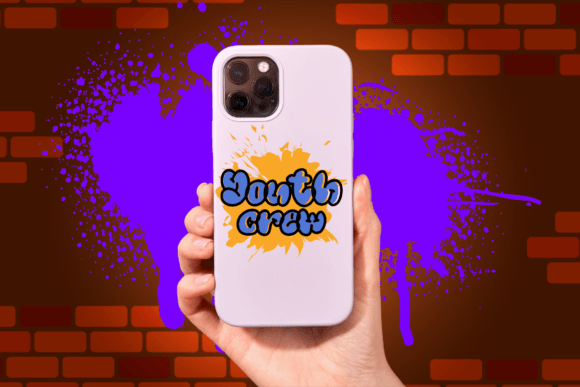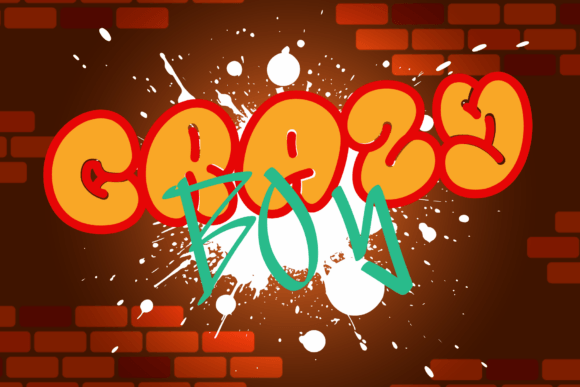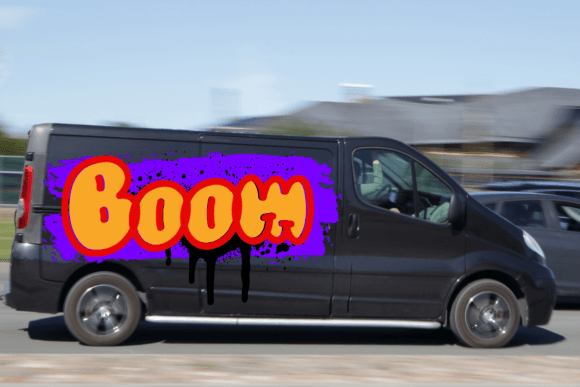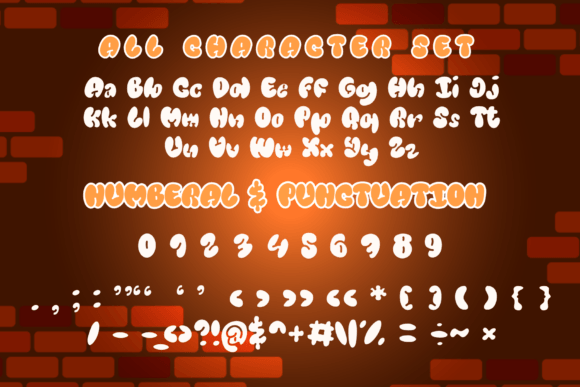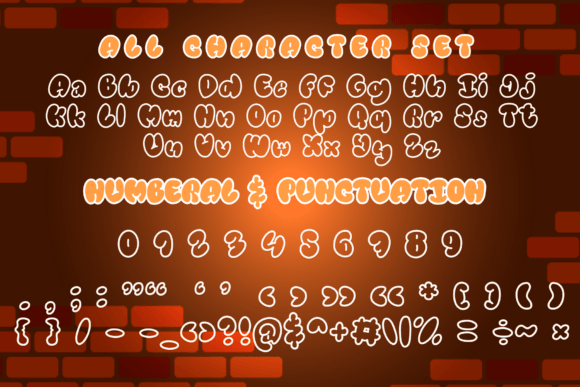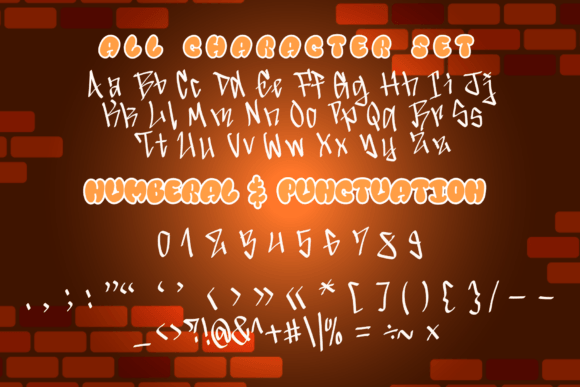
Unleash Your Creativity with Graffiti Bubbly Font: The Ultimate Trio for Designers and Crafters
Are you tired of using the same old fonts in your designs? Do you want to add a touch of playfulness and authenticity to your projects? Look no further than the Graffiti Bubbly Font, a cool and versatile trio that’s perfect for designers and crafters alike. In this article, we’ll dive into the world of Graffiti Bubbly and explore its features, benefits, and uses.
What is Graffiti Bubbly Font?
Graffiti Bubbly is a unique and stylish font trio that embodies the spirit of playfulness and authenticity. This font is designed to add a fun and carefree touch to any design project, making it perfect for a wide range of applications, from blog posts and logos to branding, ads, invitations, greeting cards, planners, photo albums, decorations, and more.
Key Features of Graffiti Bubbly Font
- Triplet Fonts: Graffiti Bubbly comes with three distinct fonts, offering a range of styles and variations to suit your design needs.
- Playful and Authentic: The font’s design is inspired by the vibrant and dynamic world of graffiti, making it perfect for projects that require a touch of personality and whimsy.
- Highly Versatile: Graffiti Bubbly can be used in a wide range of design projects, from digital designs to print materials.
Benefits of Using Graffiti Bubbly Font
So, why choose Graffiti Bubbly Font for your design projects? Here are just a few benefits of using this amazing font:
- Adds Personality to Your Designs: Graffiti Bubbly’s unique and playful design helps to add a touch of personality to your projects, setting them apart from the crowd.
- Perfect for Branding and Marketing: The font’s authentic and carefree vibe makes it perfect for branding and marketing projects that require a youthful and dynamic feel.
- Great for Crafters and DIY Enthusiasts: Graffiti Bubbly is also perfect for crafters and DIY enthusiasts who want to add a personal touch to their projects, such as planners, journals, and decorations.
Design Ideas Using Graffiti Bubbly Font
Graffiti Bubbly Font is incredibly versatile, making it perfect for a wide range of design projects. Here are some ideas to get you started:
- Blog Posts and Articles: Add a touch of personality to your blog posts and articles with Graffiti Bubbly’s playful font.
- Logos and Branding: Use Graffiti Bubbly to create a unique and memorable logo for your brand or business.
- Invitations and Greeting Cards: Add a personal touch to your invitations and greeting cards with Graffiti Bubbly’s fun and colorful font.
- Planners and Journals: Use Graffiti Bubbly to add a touch of whimsy to your planners and journals.
- Decorations and Crafts: Graffiti Bubbly is perfect for a wide range of decorations and crafts, from wall art to DIY projects.